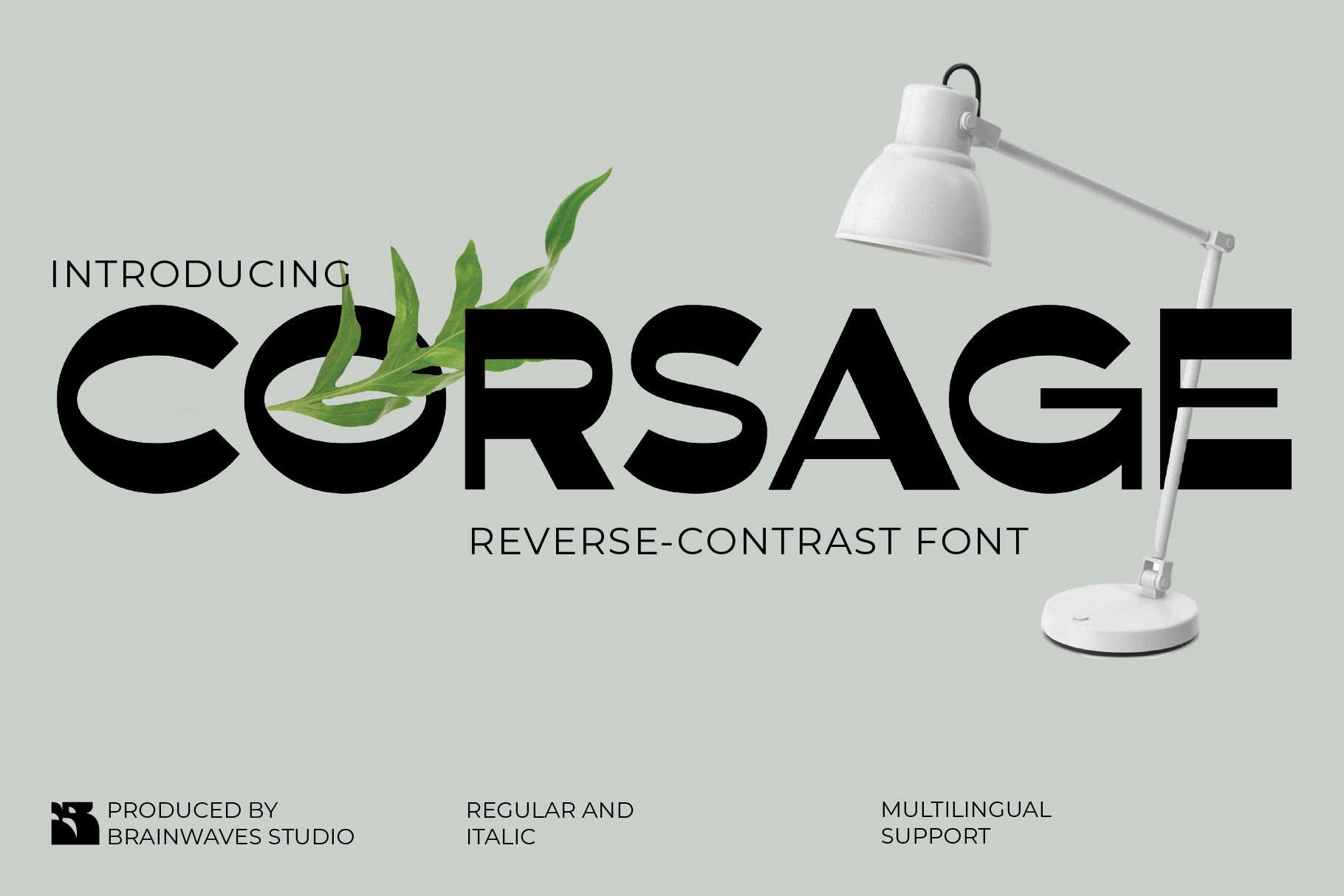
Corsage - Reverse Contrast Font
Step into a world of refined creativity with Corsage, a modern display font that seamlessly merges minimalist structure with soft, organic elegance. Perfect for projects that demand simplicity with a bold, contemporary edge.
Every letter in Corsage tells a story—crafted with precision to exude modern sophistication and minimalist charm. Whether you're designing for fashion, lifestyle, or tech, Corsage adds a timeless elegance that captivates and inspires.